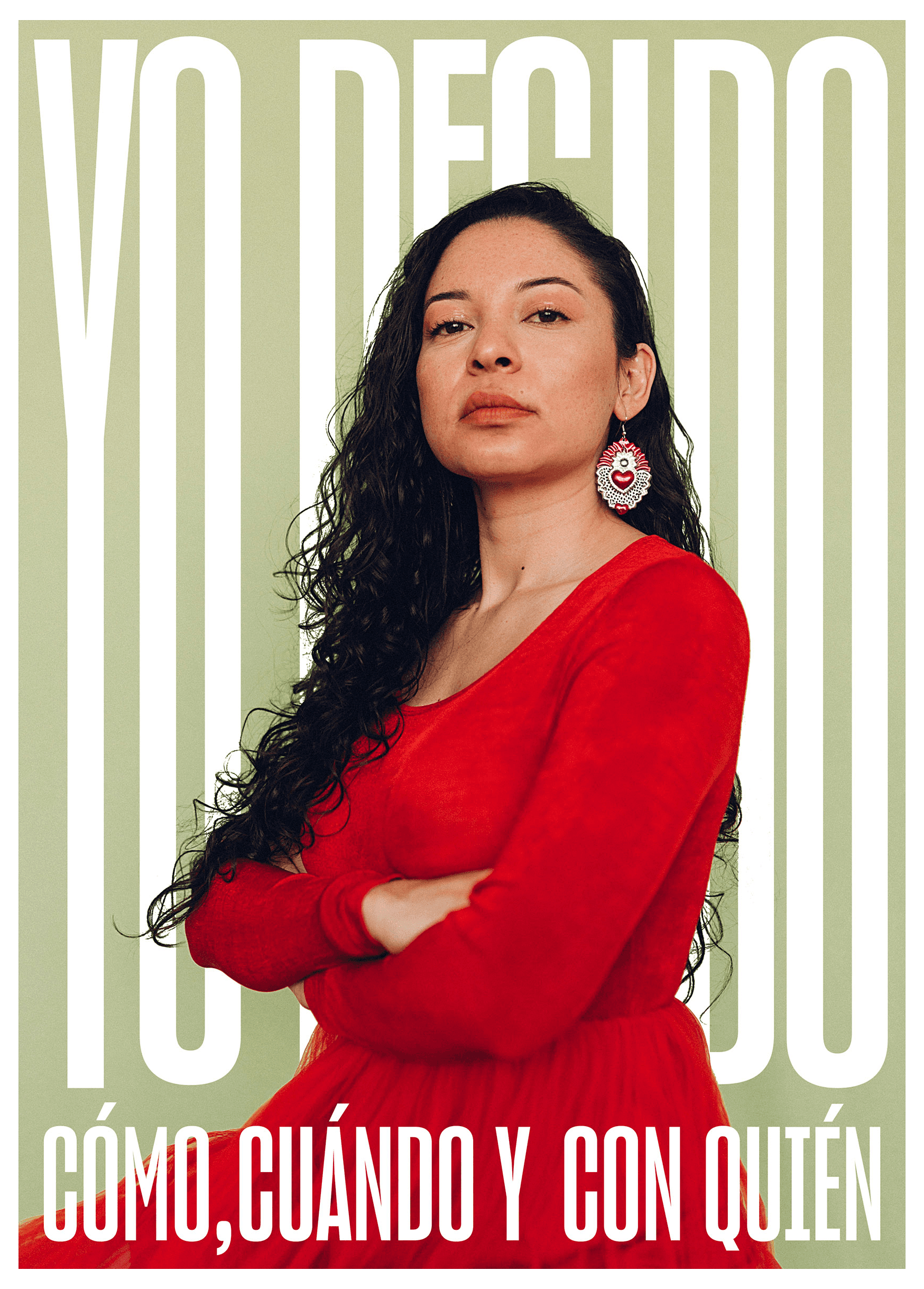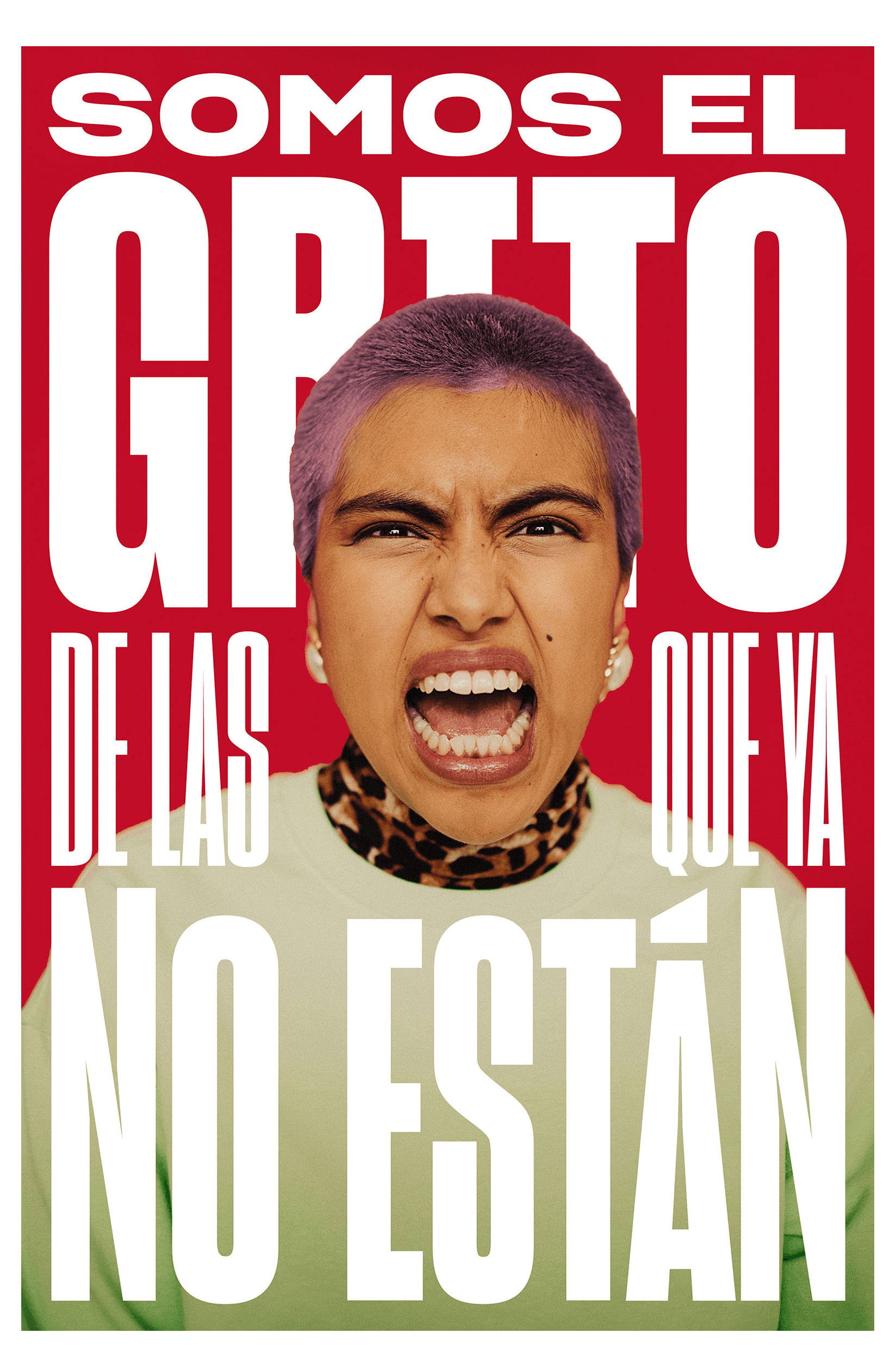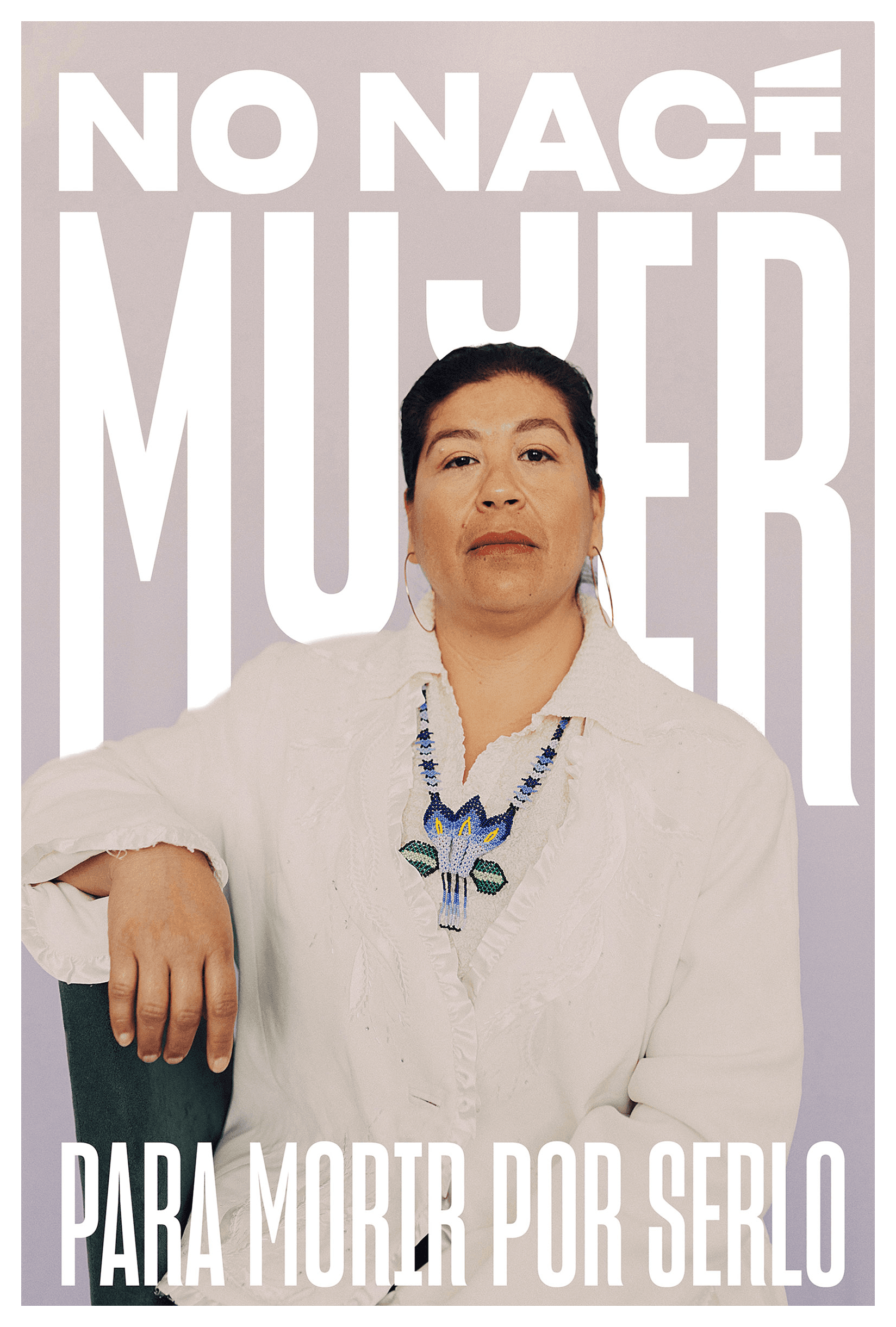
Pararemos Todo & Sharp Grotesk
On March 9, 2020, tens of thousands of women came together in Mexico for a national strike and two-day protest demanding government action towards violence against women. Since 2019, the cases of murders of both women and young girls have increased and on average, ten women are killed each day.
In light of the protests, a group of women came together to design a series of ten posters titled Pararemos Todo (“We will stop everything”) usingSharp Grotesk superfamily. “Since the government doesn’t listen to us, then we will stop, stop everything,” Fernanda González reported on VICE. The strike and the absence of women in classrooms, offices, streets, spaces, and lives emphasized how important and integral women are in the world.
Each poster features a portrait of a woman framed by powerful phrases using Sharp Grotesk’s range of weights and widths. The phrases include “Somos el grito de las que ya no están” (We are the cries of those who are gone), “Con ropa o sin ropa, mi cuerpo no se toca” (With or without clothes, my body is not to be touched), and “No nací mujer para morir por serlo” (I was not born a woman to die for being one) and take up as much space as possible on the poster to be noticed and make an impact.
Typeface: Sharp Grotesk